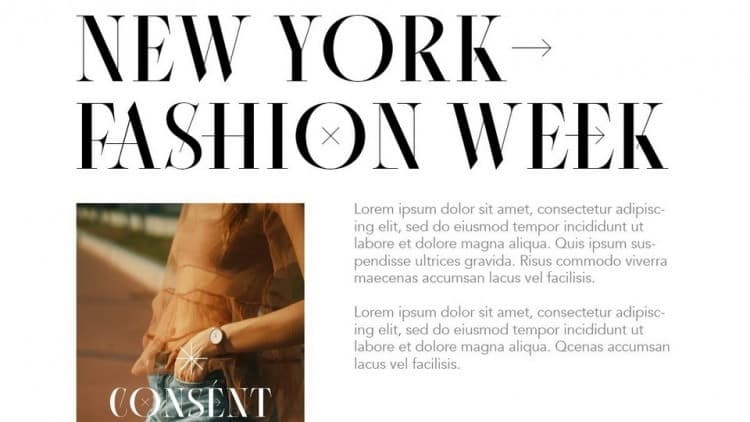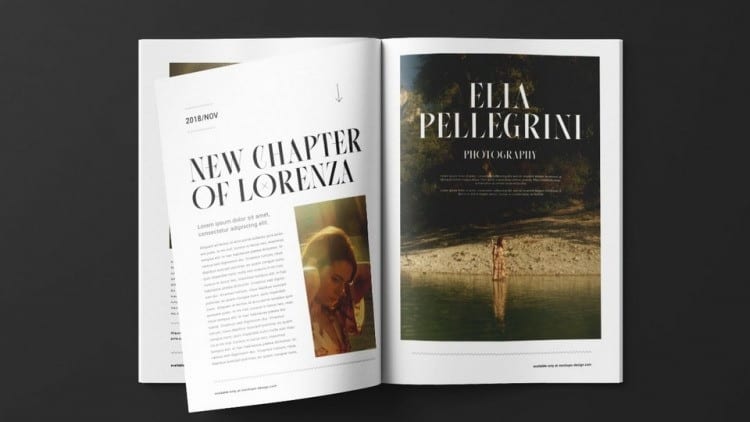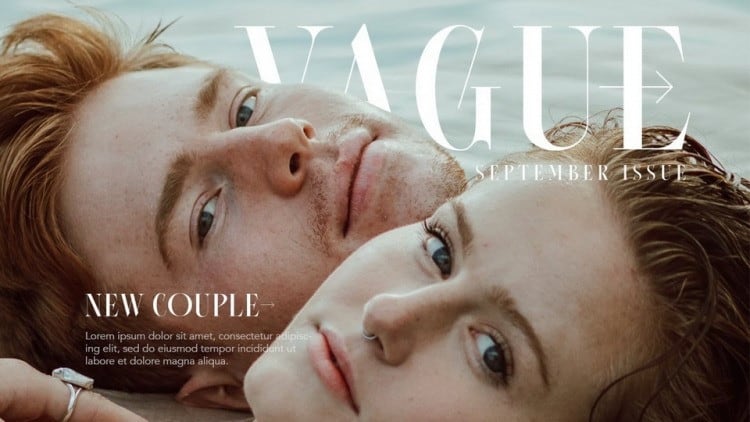
Consent Serif Font
Consent Serif Font is a serif font created by saridezra with classic, elegant, vintage, and magic feel. With special features, Consent will make your project stand out and look elegant. This font would be ideal for writing web designs, business cards, or pretty much anything else that requires a unique touch.